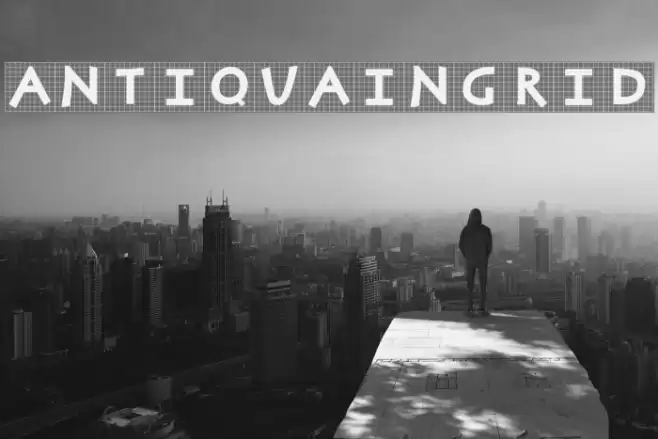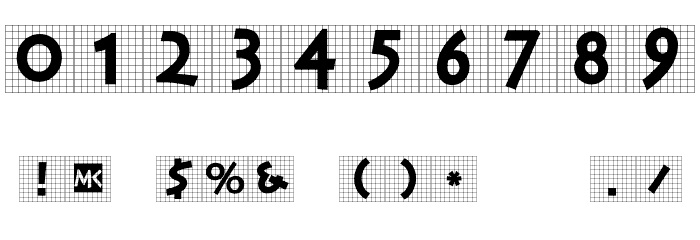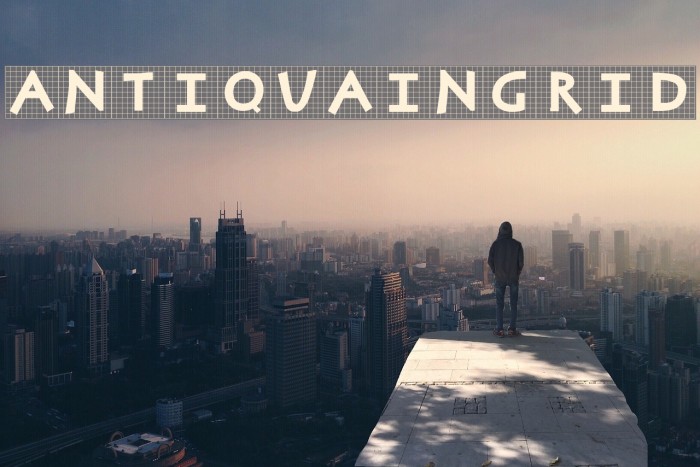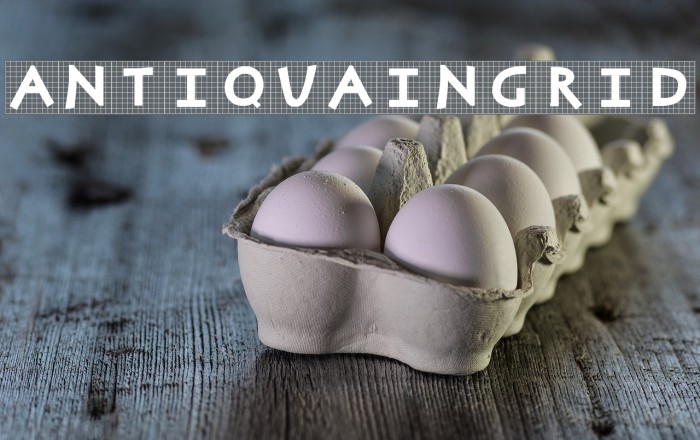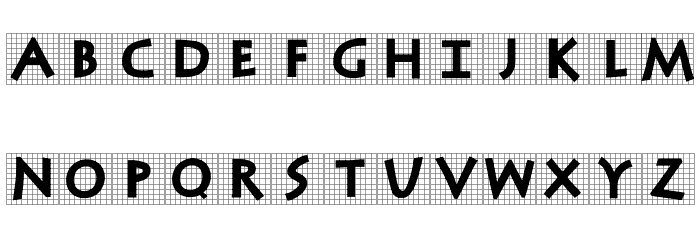
AntiquaInGrid Font
AntiquaInGrid Description
This font features a bold and geometric style with a distinct Art Deco influence. The characters are constructed with sharp angles and clean lines, giving them a modern yet vintage feel. The uppercase letters are particularly striking, with unique shapes that make them stand out. The lowercase letters maintain the same geometric aesthetic, ensuring consistency throughout the typeface. Numbers and special characters are designed with the same attention to detail, making them suitable for a variety of uses. The overall appearance is both decorative and functional, making it ideal for projects that require a touch of elegance and sophistication.
A bold, geometric font with Art Deco influences, combining modern and vintage elements from Decorative fonts.
- Proposed Projects: Ideal for branding, posters, and editorial design where a touch of elegance and sophistication is desired.
- Overall Style: Vintage